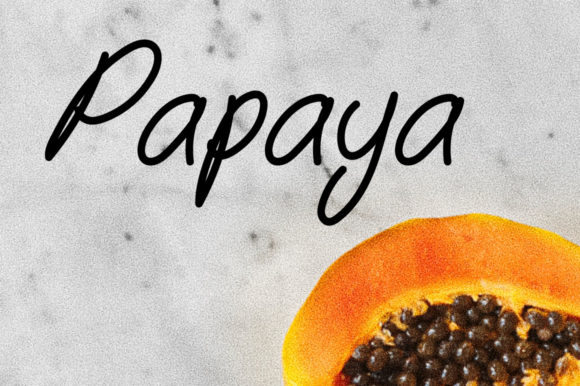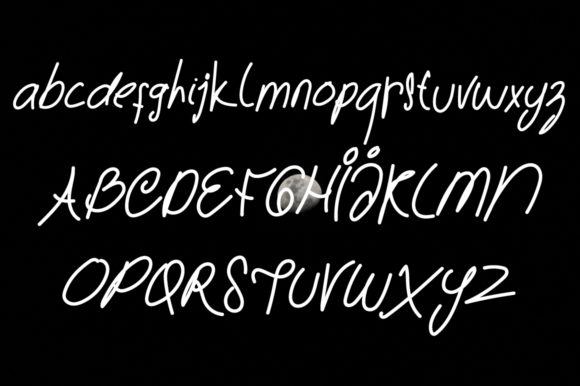
Introduction to Lazy Font
Remember that moment when you’re working on a design project and you’re stuck on finding the perfect font to give it that extra oomph? You’ve got your ideas, your colors, and your layout, but something’s missing. That’s where Lazy Font comes in – a beautiful, handwritten font that adds a touch of whimsy and romance to any design.
As a designer, you know how important it is to have a reliable design resource at your fingertips. Lazy Font is a high-quality, free download that’s perfect for adding a personal touch to your projects. Whether you’re creating t-shirts, banners, or business cards, this soft font is sure to make your design stand out. And the best part? It’s incredibly versatile, with a transparent background that makes it easy to layer and customize.
- High-quality design: Lazy Font offers a wide range of unique, high-quality font styles perfect for creative projects.
Honest Review: Lazy Font
I recently stumbled upon the Lazy Font, and I must say, it’s been a game-changer for my design projects. The Lazy Font is a beautifully crafted, high-quality font that’s perfect for any creative project. It’s available for free download, making it a fantastic resource for designers like me who are always on the lookout for new and exciting design elements.
Overall, I’m thoroughly impressed with the Lazy Font. It’s a fantastic design resource that’s perfect for any creative project. While it has its limitations, the benefits far outweigh the drawbacks. I highly recommend giving it a try!
Lazy Font is a high-quality, free design resource ideal for creative projects. Its transparent background makes it perfect for overlaying text on images or using as a standalone design element.
To get the most out of Lazy Font, experiment with different font sizes, colors, and layering techniques to create unique and eye-catching designs.
Lazy Font is perfect for social media graphics, blog posts, and other creative projects where a high-quality, transparent font is needed.